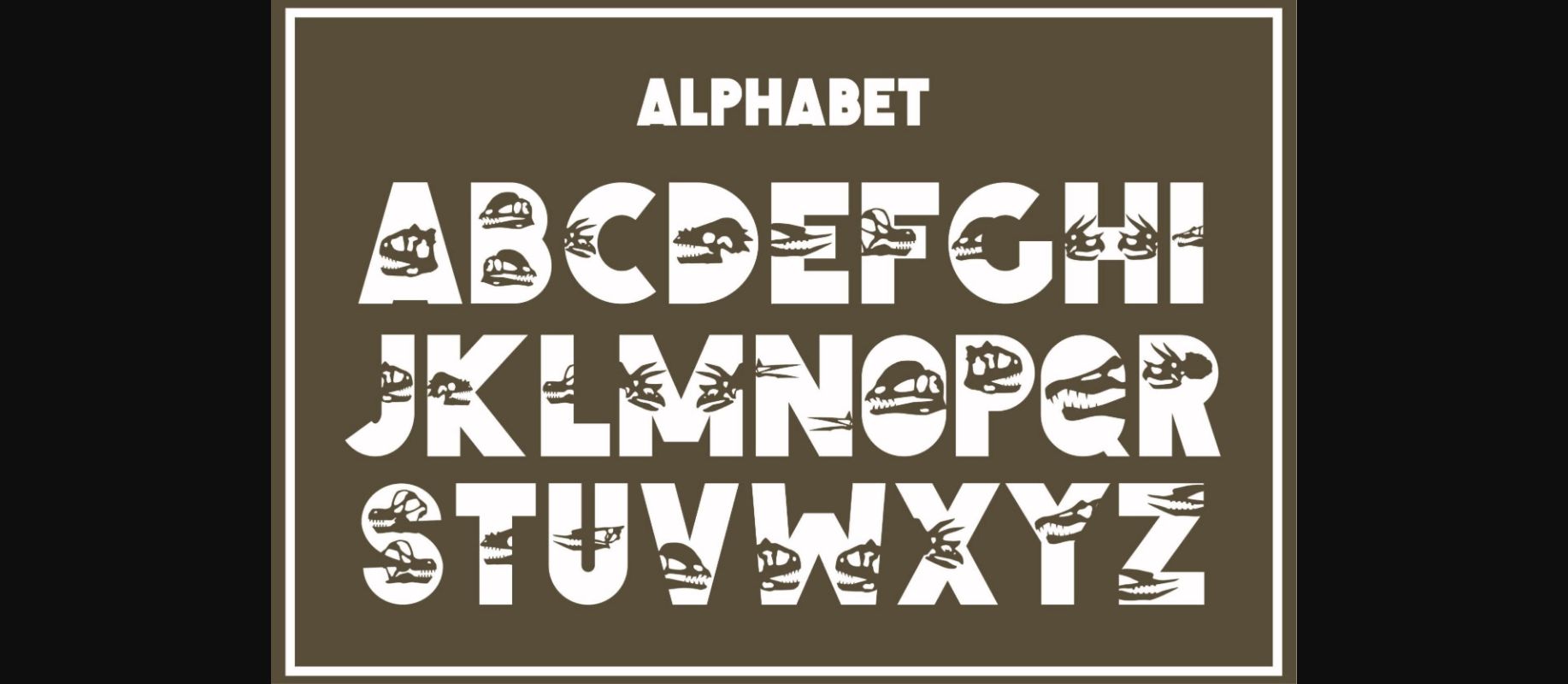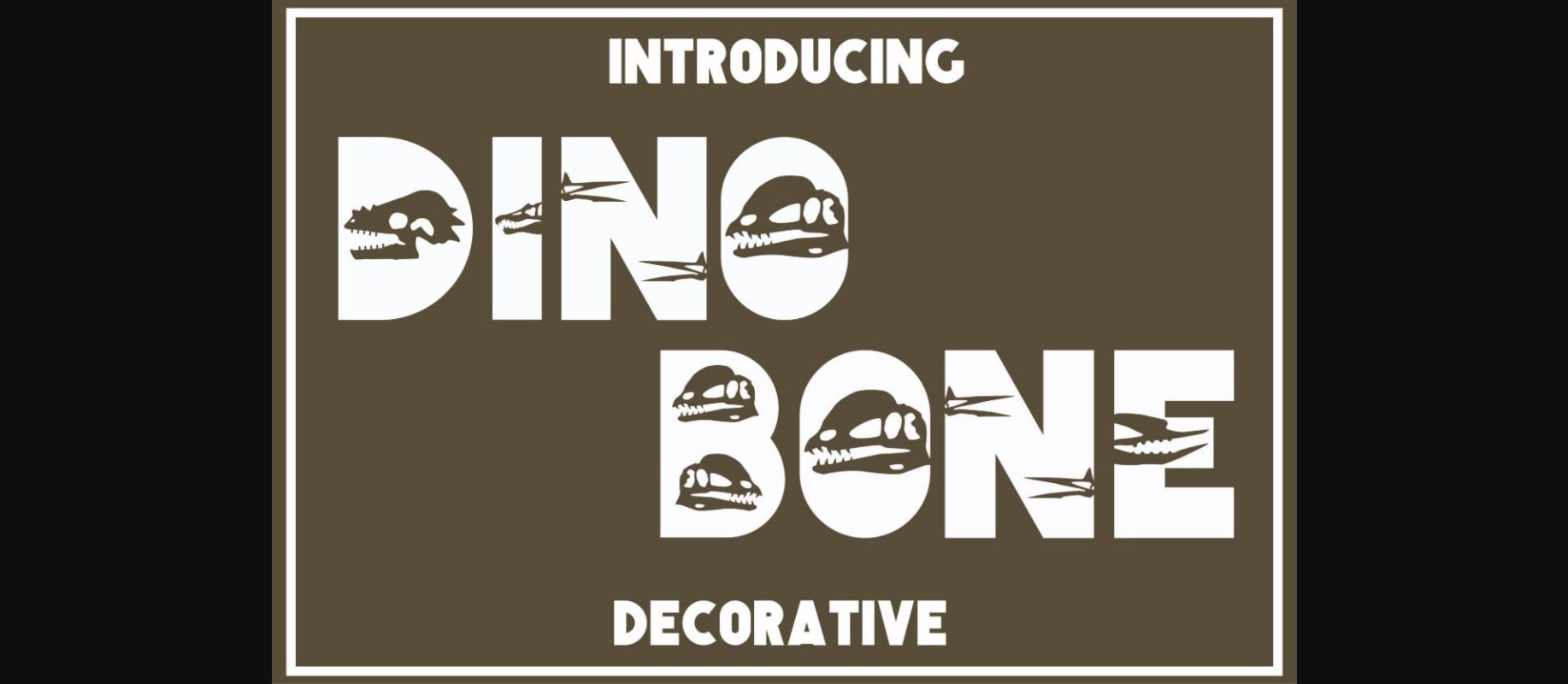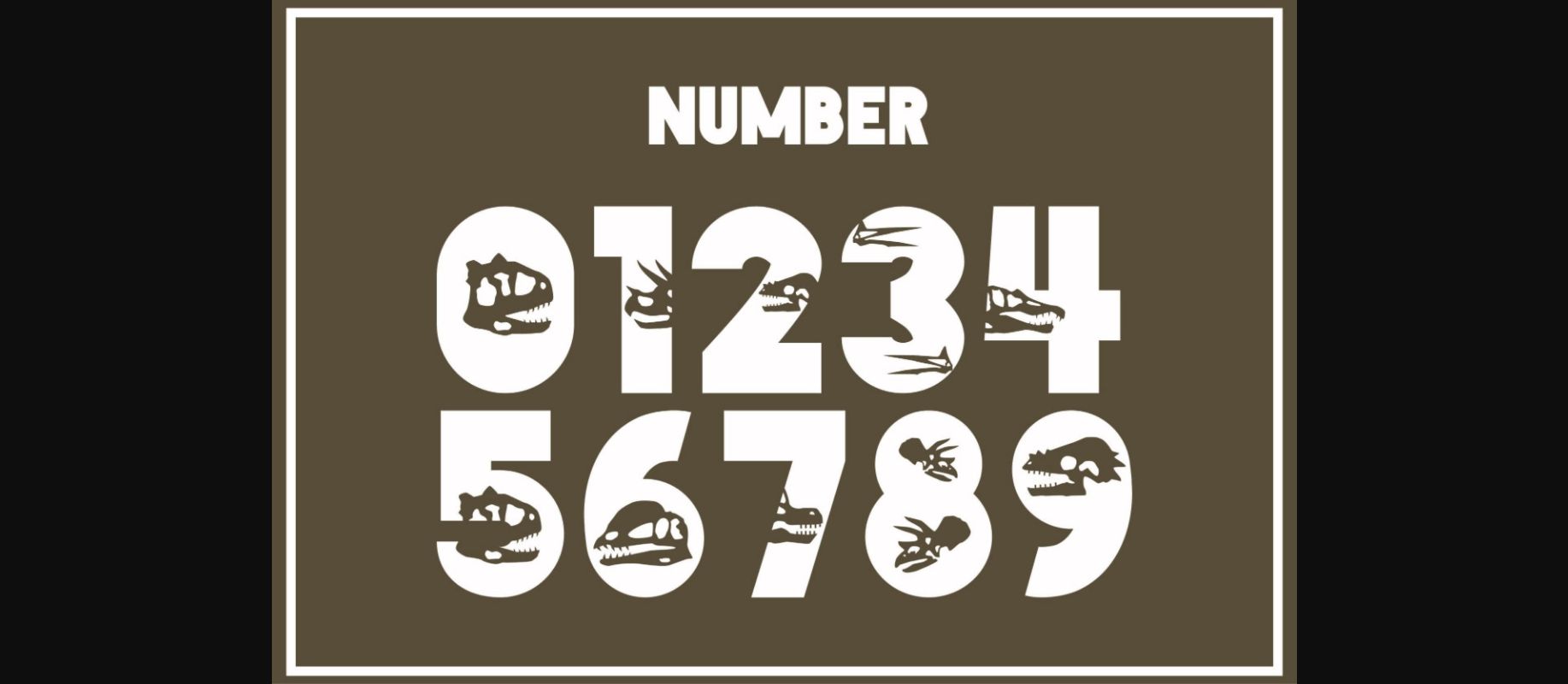
Dino Bone is a fun and unique decorative font featuring interesting dinosaur skulls as ornaments. This original look will appeal to a wide range of crafty ideas, from letterheads and titles to stationery.